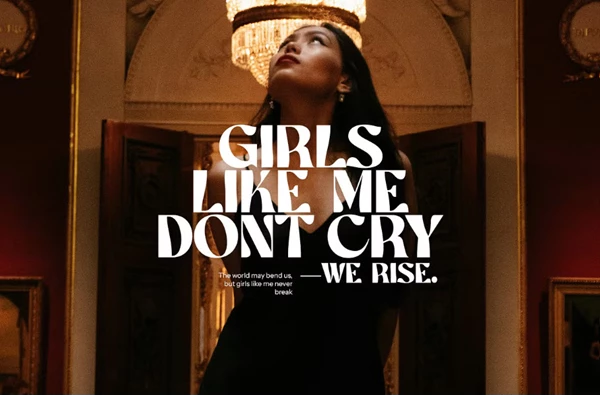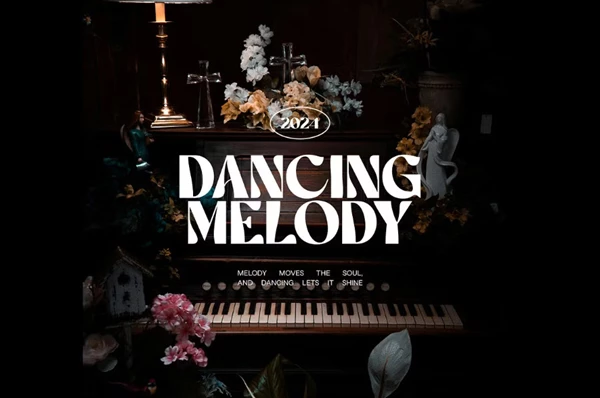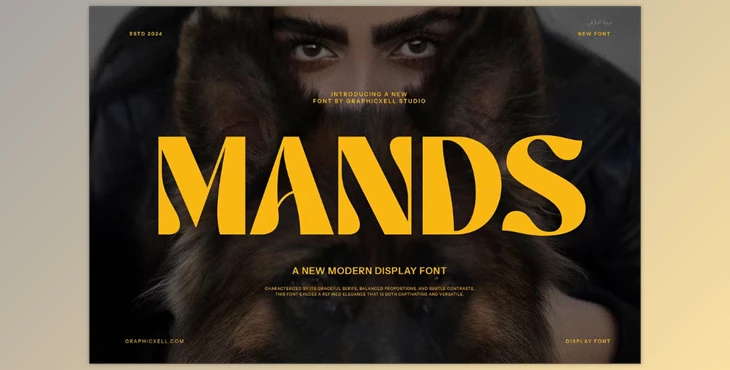
Mands Unique Serif Font:
Mands Unique Serif Font is a modern serif typeface with a unique flair due to its gentle curves and elegant ligatures. The typeface features calligraphic touches which enhances its beauty, thus making it perfect for numerous design works.
Mands Unique Serif Font can be used in designing beauty and crafts projects, branding, and layouts. It is beautiful and versatile enough for personal and commercial projects. It has smooth strokes and balanced line thickness which improves the overall esthetic of the work.